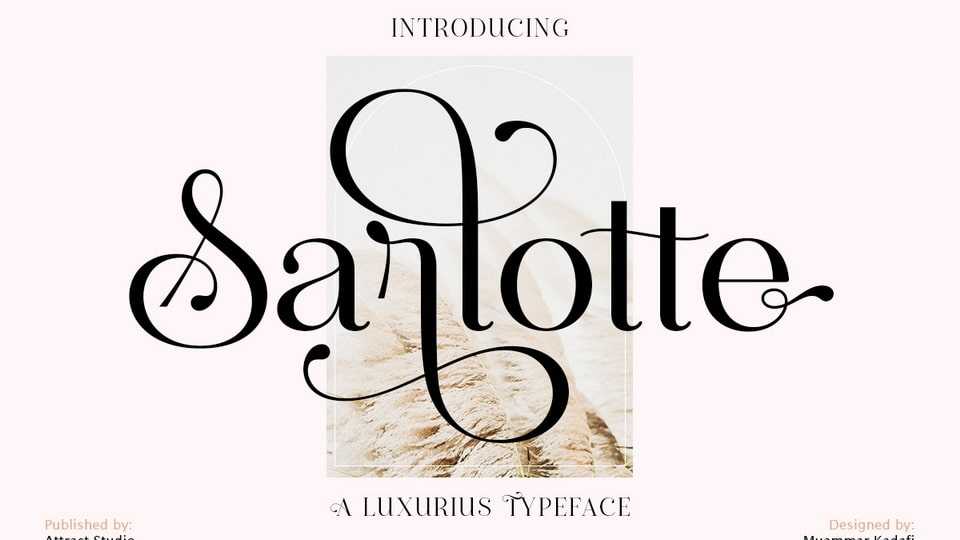
Sarlotte Font › Fontesk – Download Grátis
Download Sarlotte font, a stylish and distinct display typeface with an elegant touch. Sarlotte font seduces your eyes with its curves yet still manages to maintain its classy serenity.